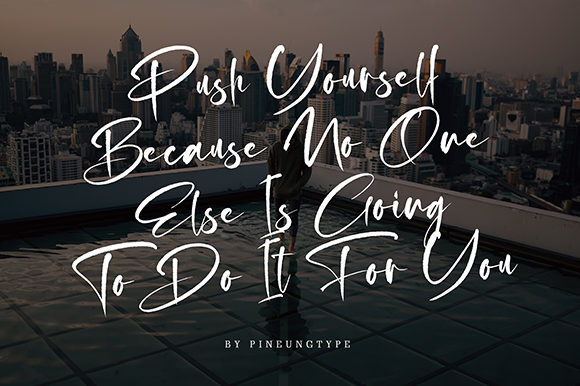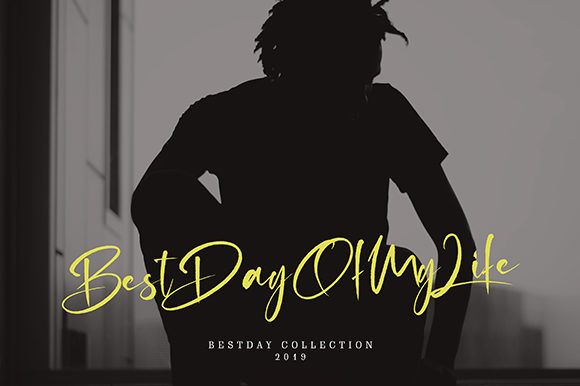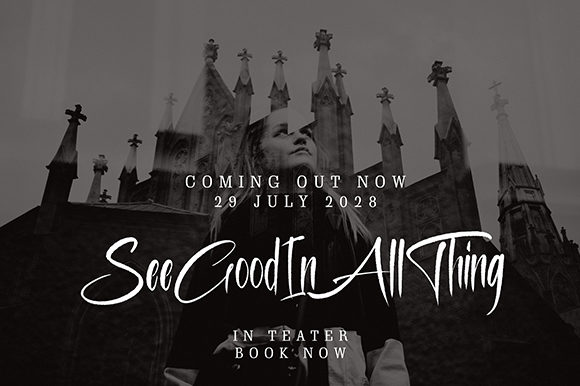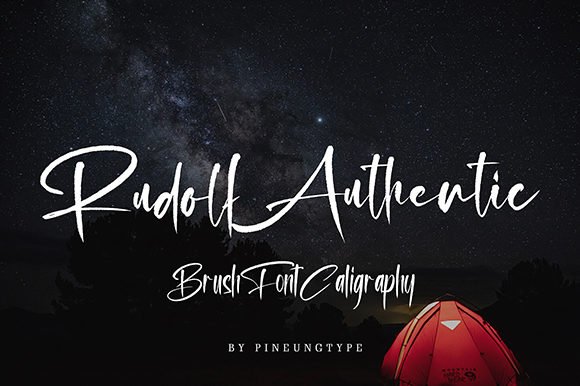
Introduction to Rudolf Authentic Font
Rudolf Authentic is a unique script font with modern characters.
It works well for a wide variety of projects .
Rudolf Authentic Font offers exceptional quality and versatility, making it a valuable addition to your design toolkit. Whether you’re creating for personal projects or commercial use, Rudolf Authentic Font delivers professional results.